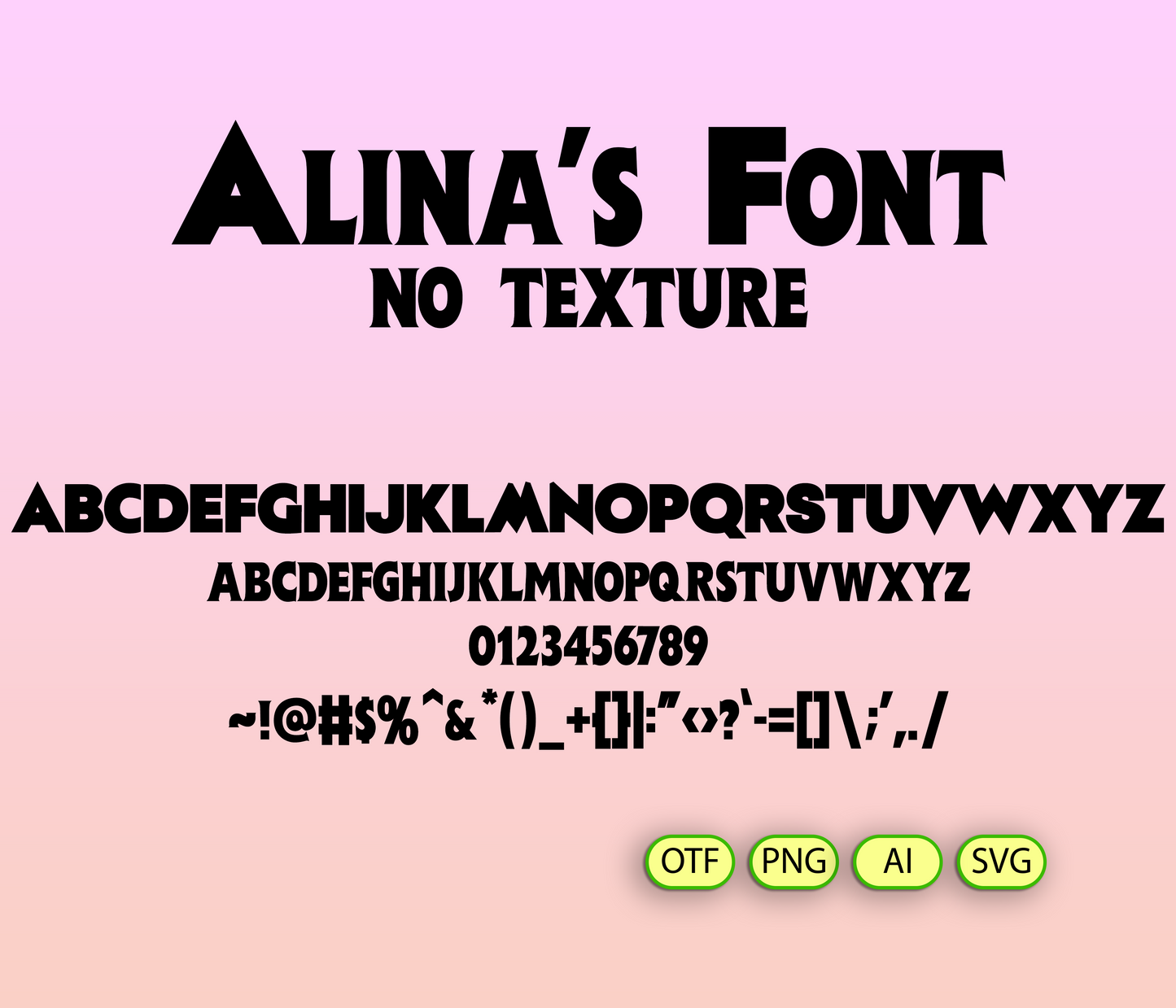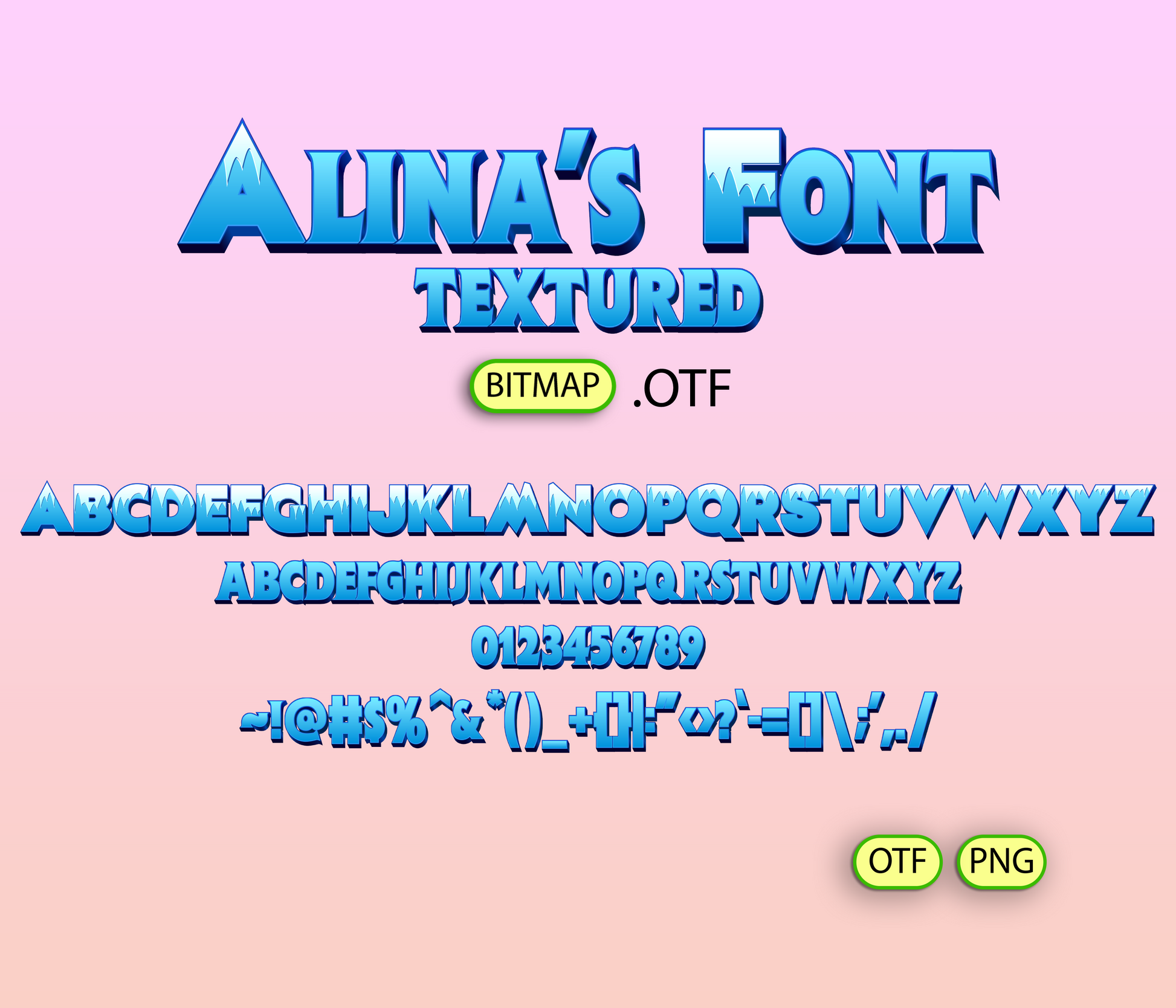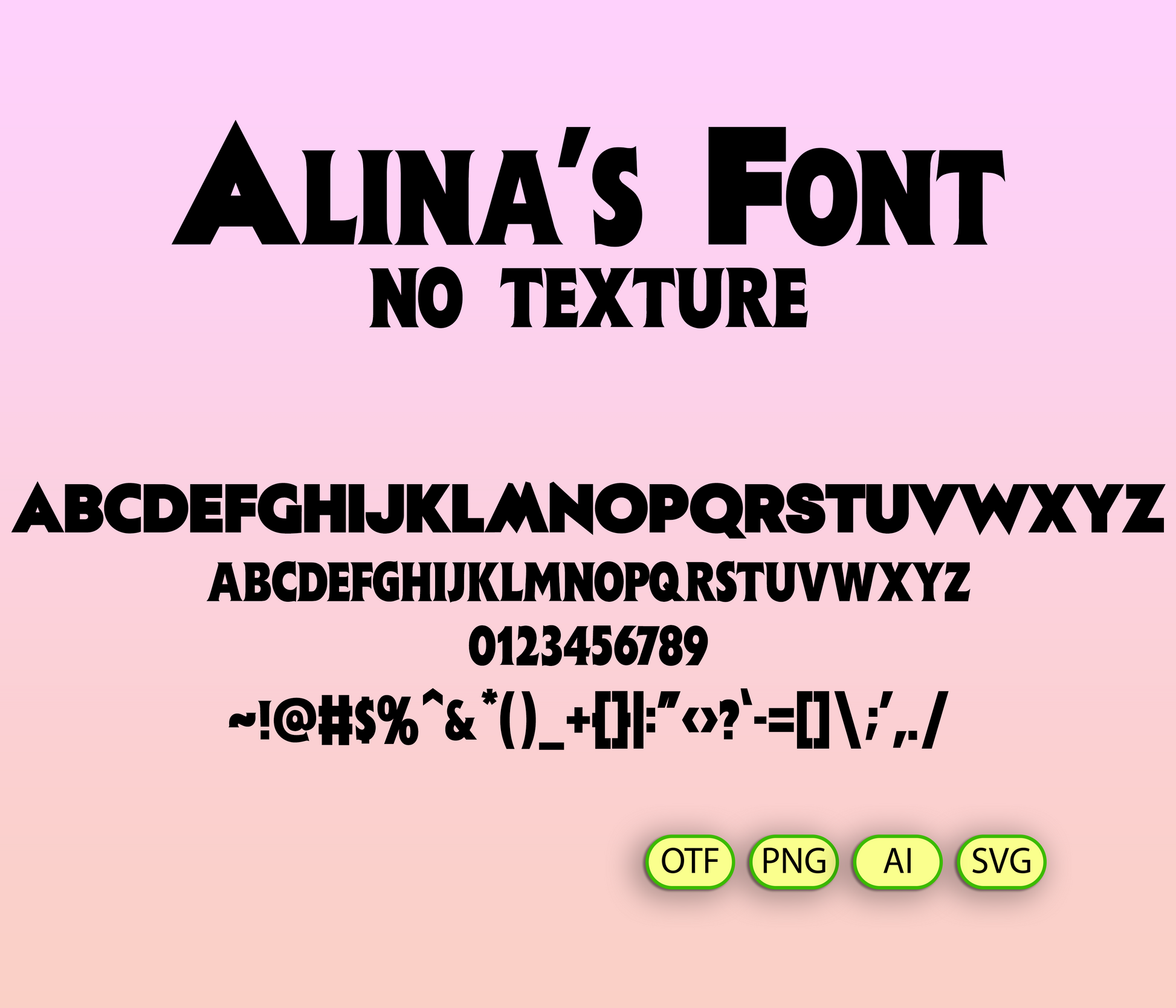
Snowy Beast Adventure Font Textured
Step into the enchanting world of mountain mysteries with our Yeti-inspired font that captures the heart-warming spirit of friendship and snow-covered adventures. This carefully crafted typeface brings together the charm of animated wilderness tales with a touch of Himalayan magic, perfect for projects that need that special mix of whimsy and wonder.
Our font includes both textured and clean variants, ensuring perfect compatibility with all design software, including Canva. Whether you're creating professional designs or personal projects, this versatile font adapts to your needs while maintaining its distinctive charm.
Our Snowy Beast font combines playful curves with frosty textures, creating characters that feel as magical as a mountaintop discovery. It's designed to bring that high-altitude charm to every project, featuring bold, friendly letterforms that capture the essence of mountainous adventures and unexpected friendships.